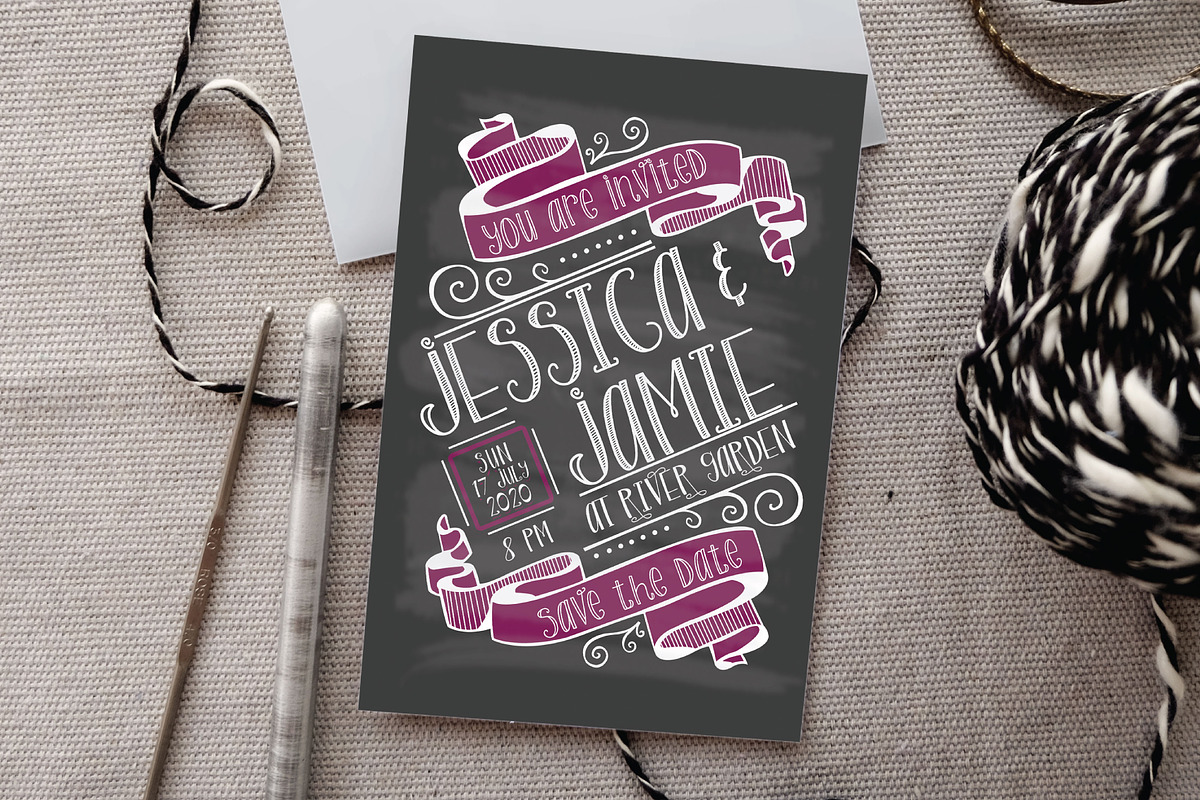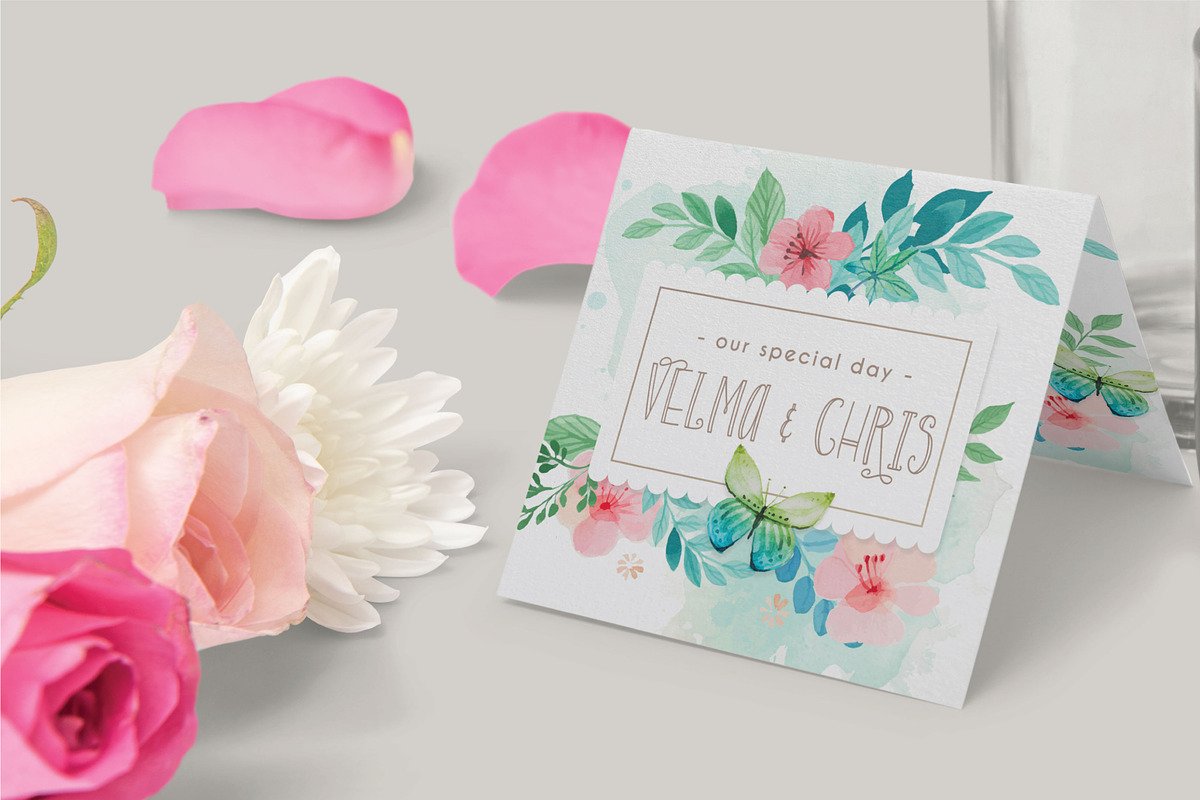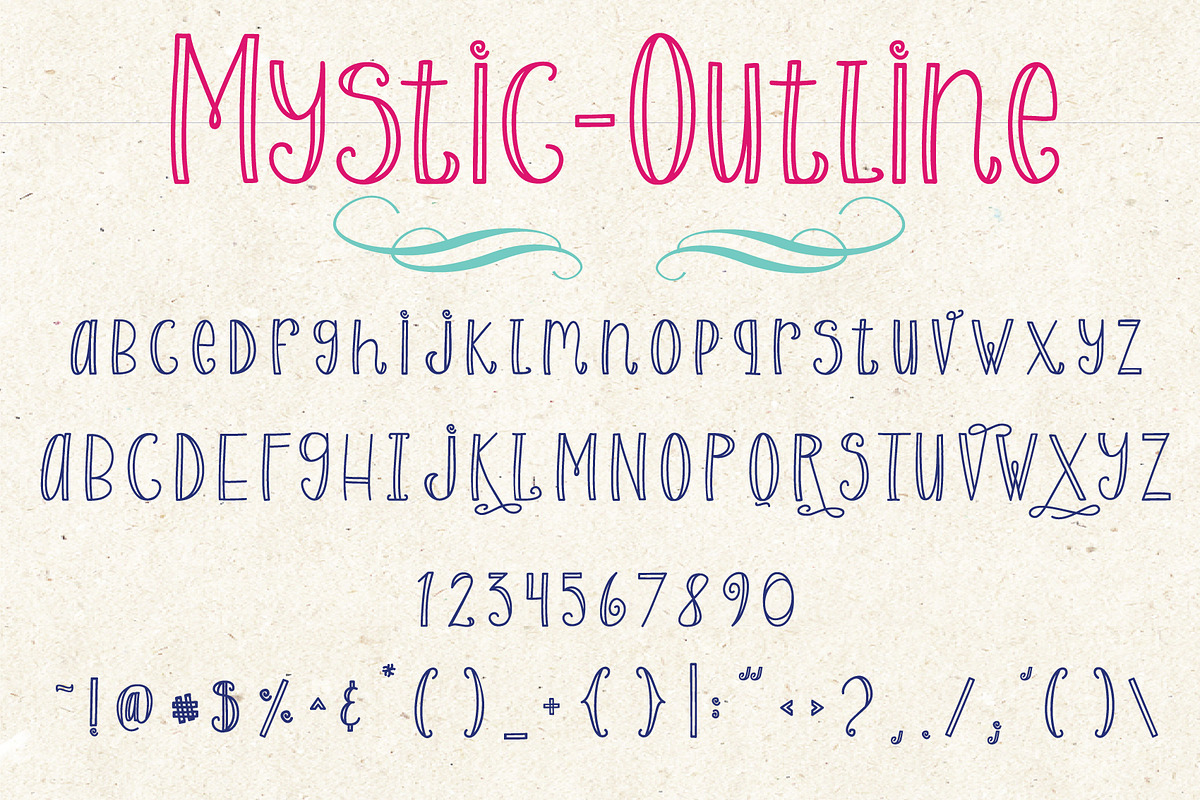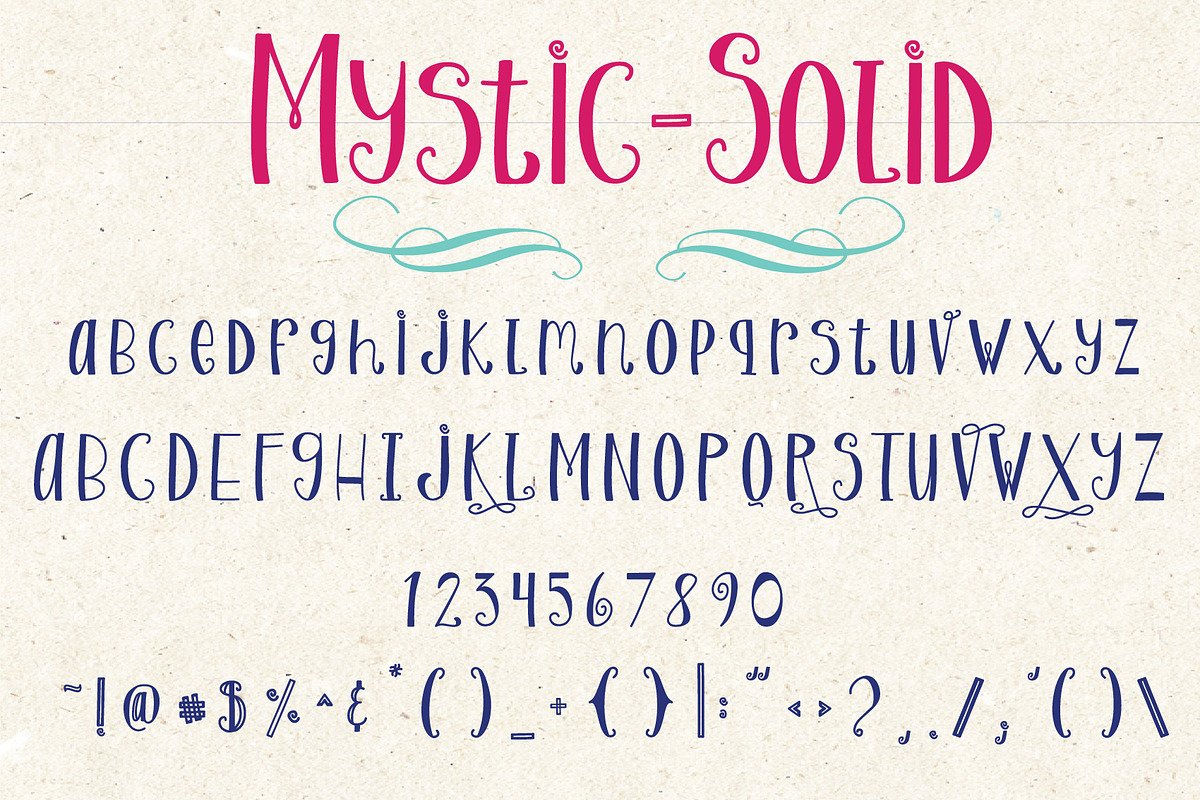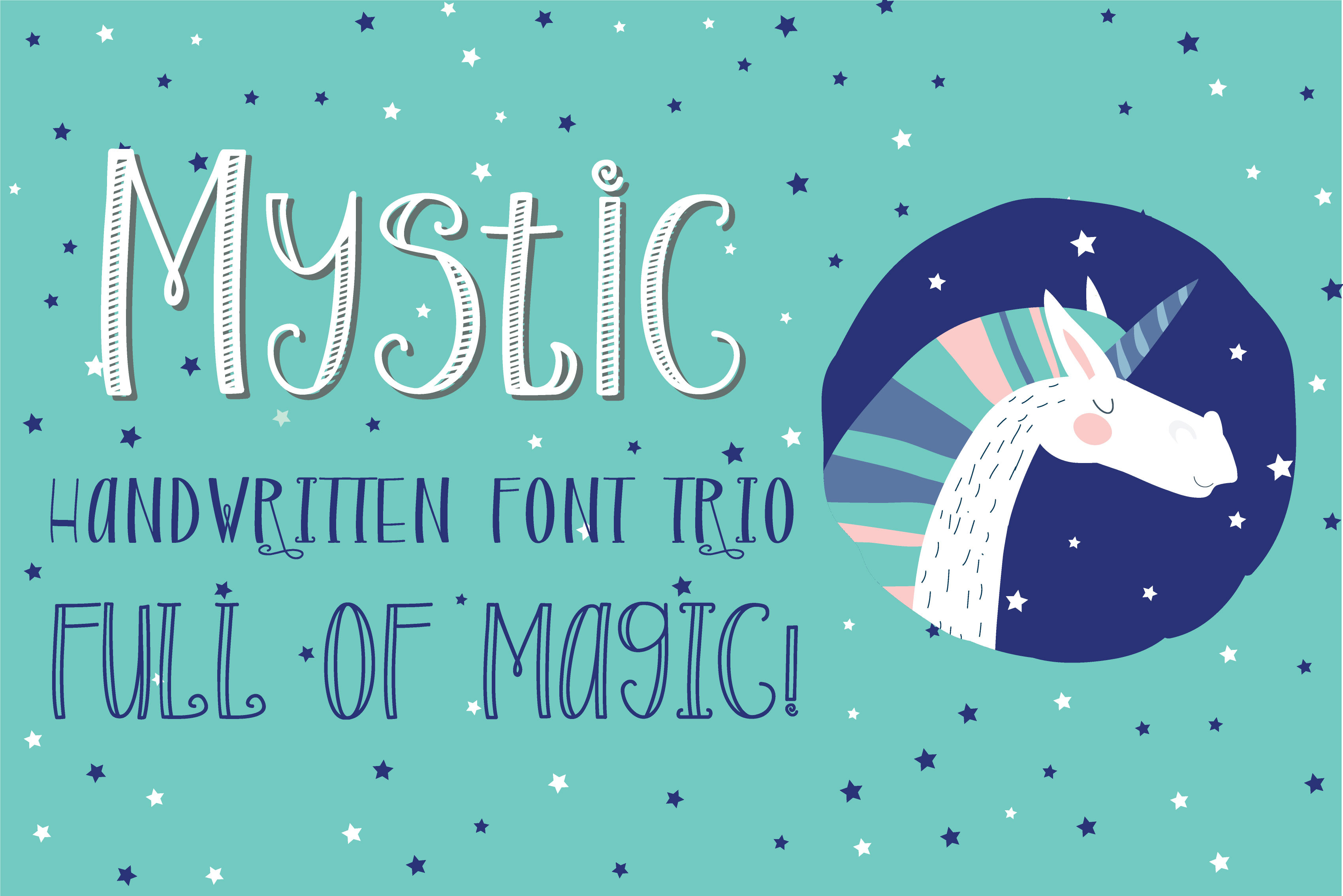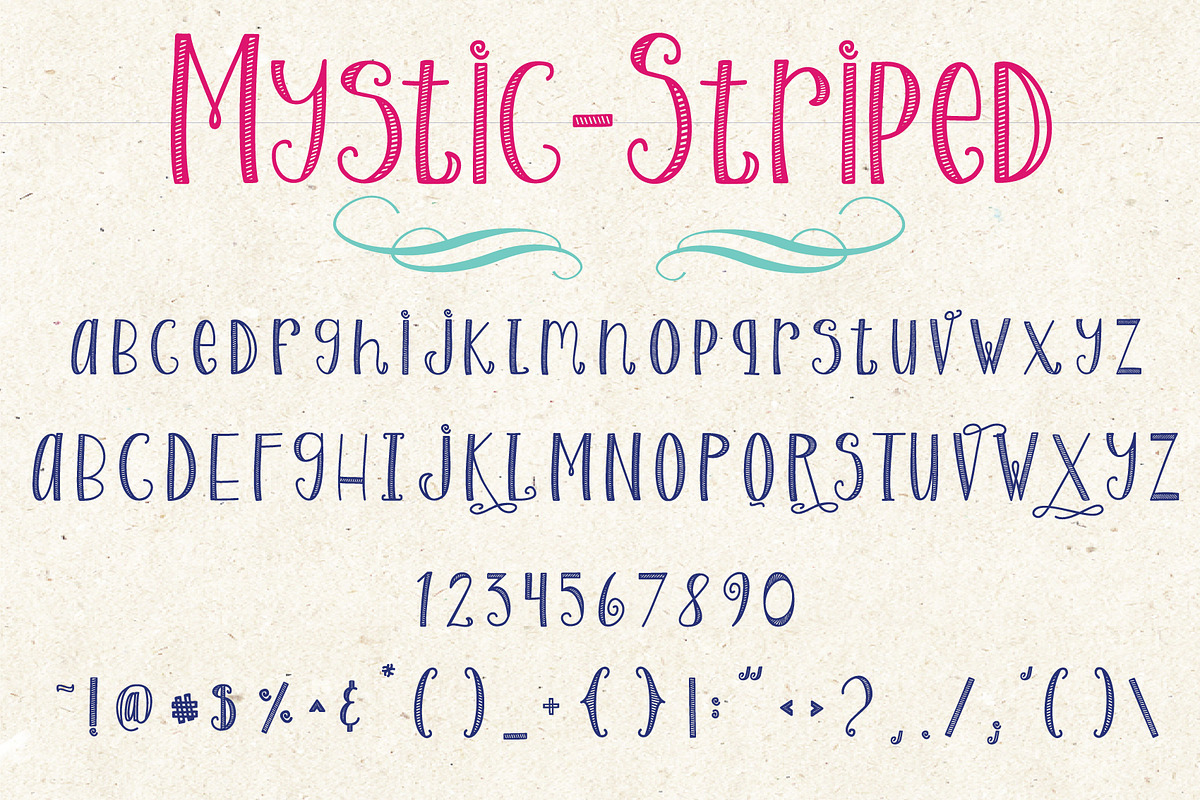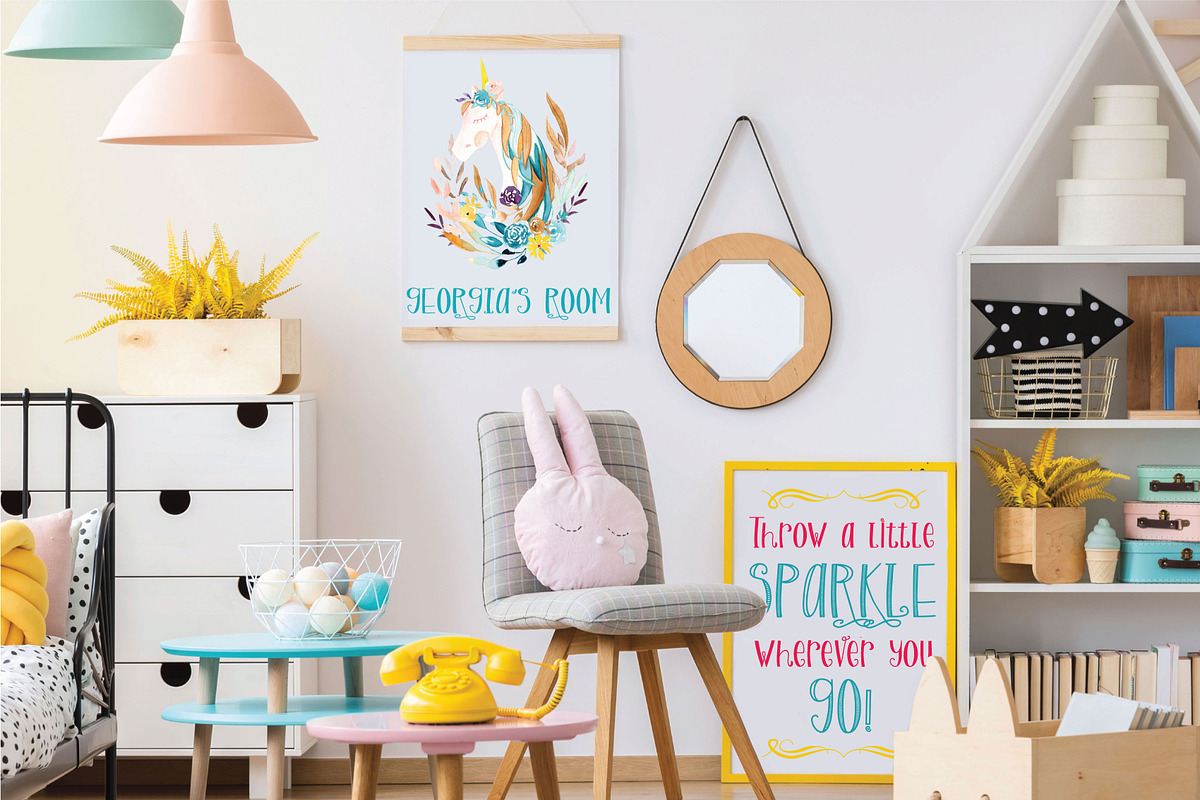
Mystic // Magical Font Family
A fun font, with magical little touches like swirls, curls, stripes and more. This trio includes (3) full font designs with little differences to make them each unique. This font is adorable, perfect for fantasy, kids birthday invitation and other applications where you believe in MAGIC once again.
- Mystic 'Outline'
- Mystic 'Striped' - lots of stripes throughout the letters
- Mystic 'Solid' - filled in letters, creating a bolder look
- All uppercase & lowercase letters
- Numbers and all punctuation
- Latin Accents
This font is perfect for displays such as posters, signage, branding, social media, birthday invites, product packaging, labels, prints and more!
My fonts are all hand drawn and created by ME! With tools like my iPad, Procreate and Glyphs I bring my fonts to life, Enjoy using them as much as I did creating them!